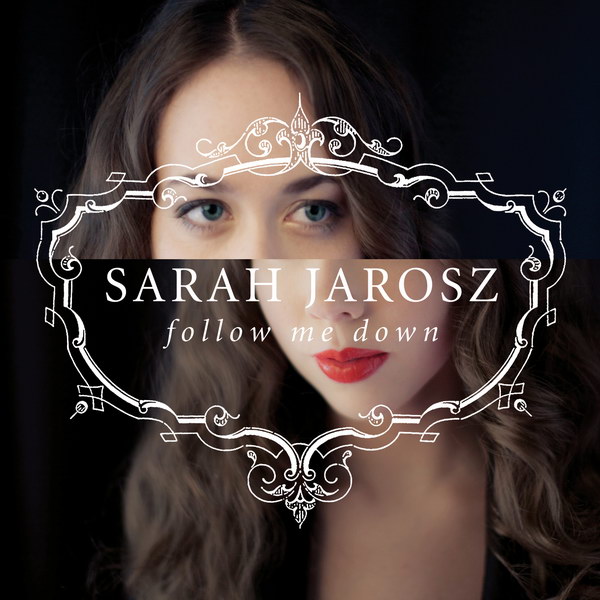
Follow Me Down Font
CountryFollow Me Down is the second studio album of American folk and bluegrass singer-songwriter Sarah Jarosz, released by Sugar Hill Records in 2011.